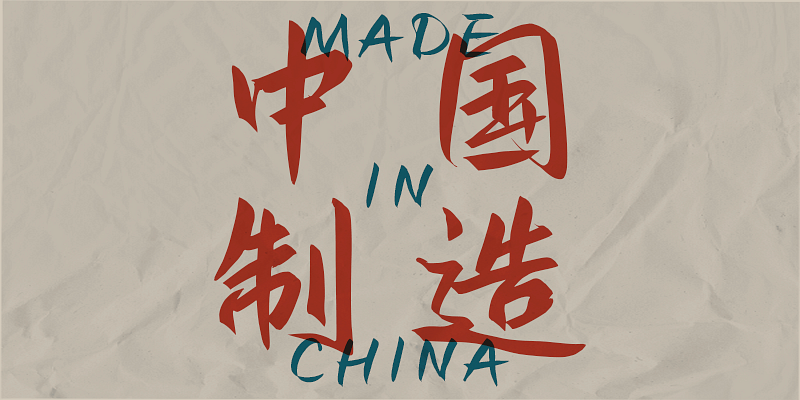
HelloFont ID Xiu Feng Ti Font Free Download is an elegant and poetic Chinese typeface that blends calligraphic charm with a light, refined presence. The name “Xiu Feng” (秀风) translates to “Graceful Wind,” perfectly capturing the font’s flowing strokes, airy spacing, and natural rhythm. It’s ideal for literary works, invitations, cultural branding, boutique packaging, and projects that aim to convey elegance, softness, and tradition.
HelloFont ID Xiu Feng Ti Font Free Download features brush-style strokes with a modern, clean execution—bringing together the feeling of handwritten beauty with professional typographic structure. The font is expressive yet restrained, making it especially useful in design contexts that call for emotional warmth without overwhelming visual noise.
Supporting simplified Chinese and basic Latin characters, this typeface works wonderfully in bilingual designs or creative storytelling layouts where artistic flair meets readability.
Graceful, expressive, and quietly beautiful—HelloFont ID Xiu Feng Ti brings a poetic breath of fresh air to any design, turning text into a serene visual experience.